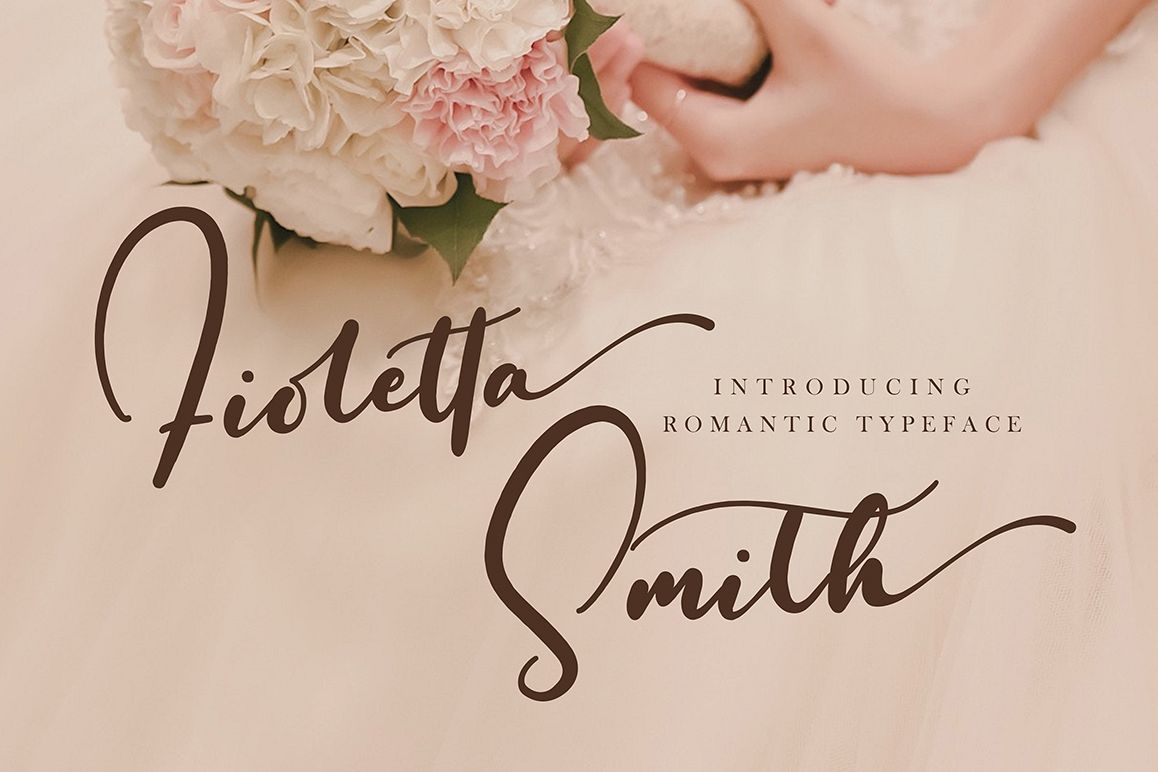
Fioletta Smith
Fioletta Smith modern script font with modern style, this font will perfect for many different project ex: quotes, logo, blog header, poster, wedding, banding, fashion, apparel, letter, invitation, stationery, etc... ...